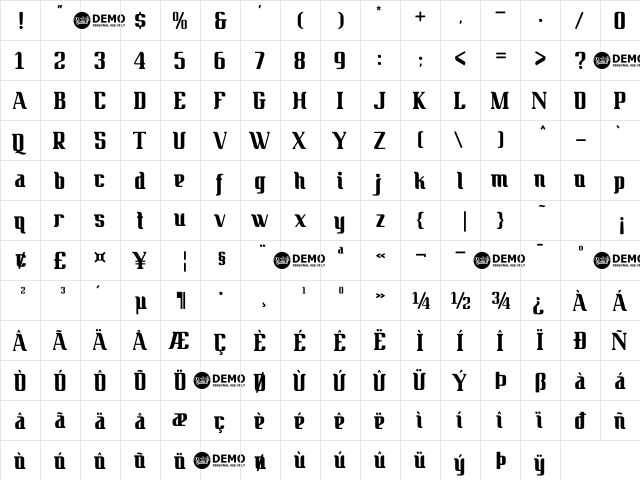
Quickjob Demo Regular
Design Context for Quickjob Demo Typeface
Quickjob Demo takes a measured approach to typography — its balanced proportions and neutral character make it a reliable workhorse for both digital and print work.